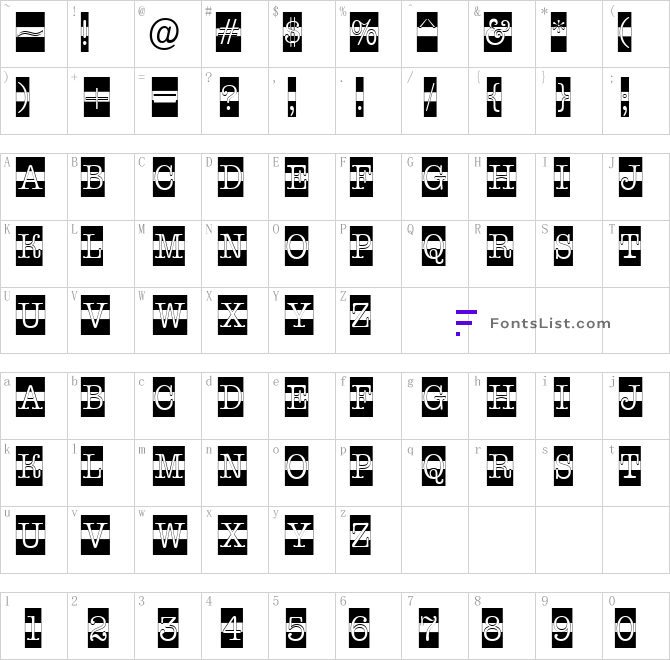
a_OldTyperCmDcWStr.ttf is a very beautiful artistic font, a_OldTyperCmDcWStr.ttf is widely used in the design and printing of various books and pictures,a_OldTyperCmDcWStr.ttf has a strong visual impact,a_OldTyperCmDcWStr.ttf is a commonly used font in newspapers, magazines and books, and is used in posters, e-commerce Poster design, store design, logo design, font design and other fields.a_OldTyperCmDcWStr.